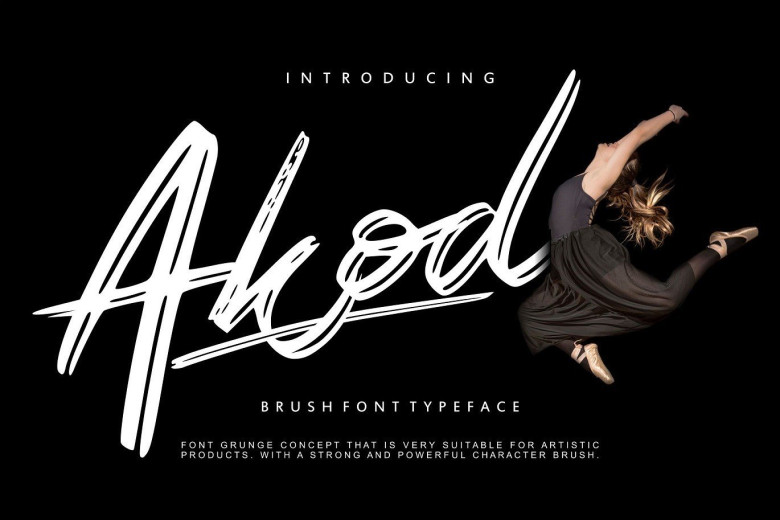
Akod Brush Script Font
Akod Brush Script Font is a fresh handwritten font brush, elegant and vintage feel character set. Akod font includes a full set capital and lowercase letters, as well as multi-lingual support, currency figures, numerals, & punctuation.